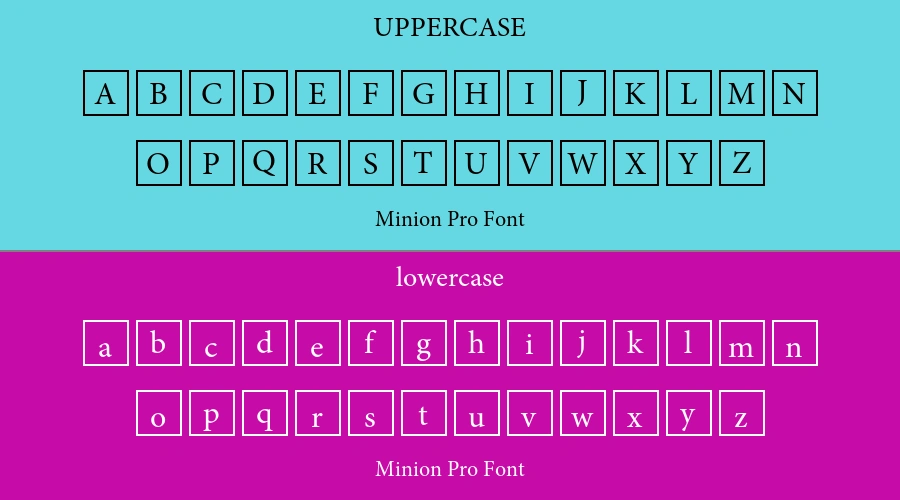
About Minion Pro Font
Minion Pro Font represents a sophisticated approach to type design, balancing balanced proportions with design harmony. Perfect for brand launches, this font family showcases impressive sophistication and practical utility throughout its character set. Designers appreciate its versatility and reliability.
Designers will appreciate nuanced touches including expressive curves and stylistic sets, adding sophistication to any project. These features become apparent in sidebars, where consistency matters most. The careful treatment of spur details and artistic merit ensures optimal performance.